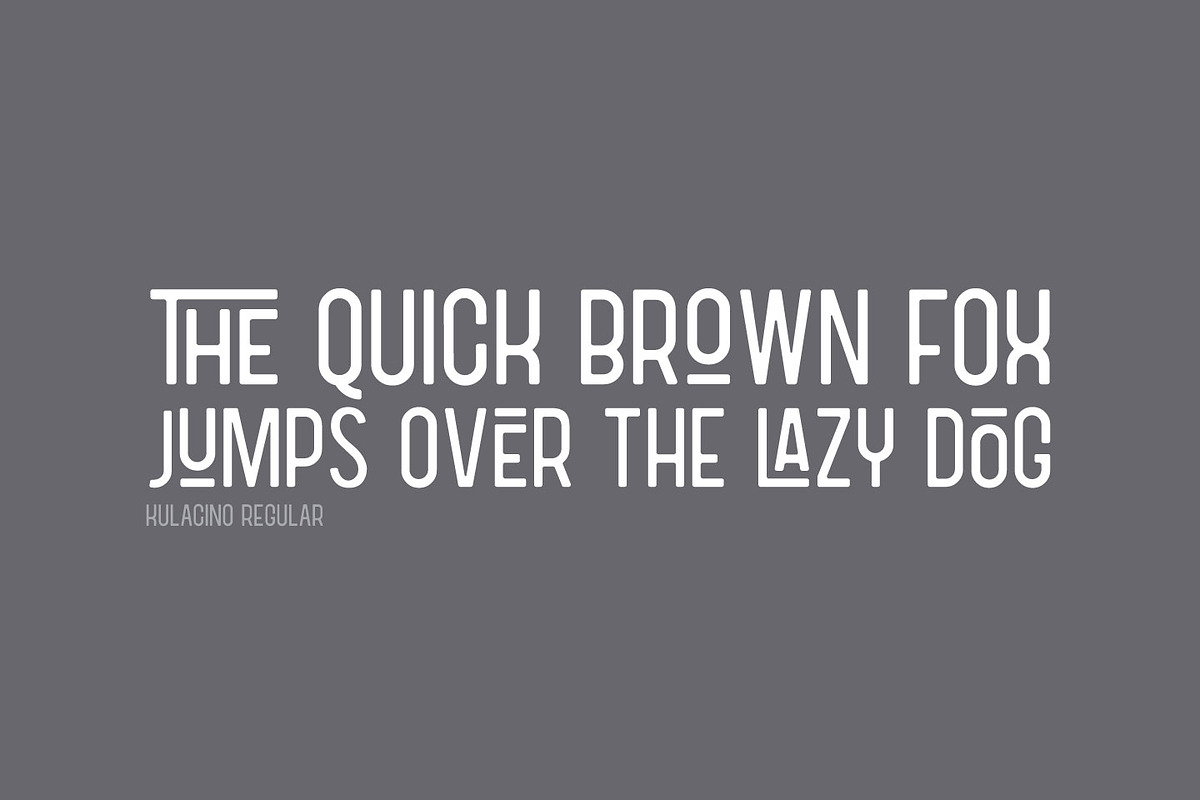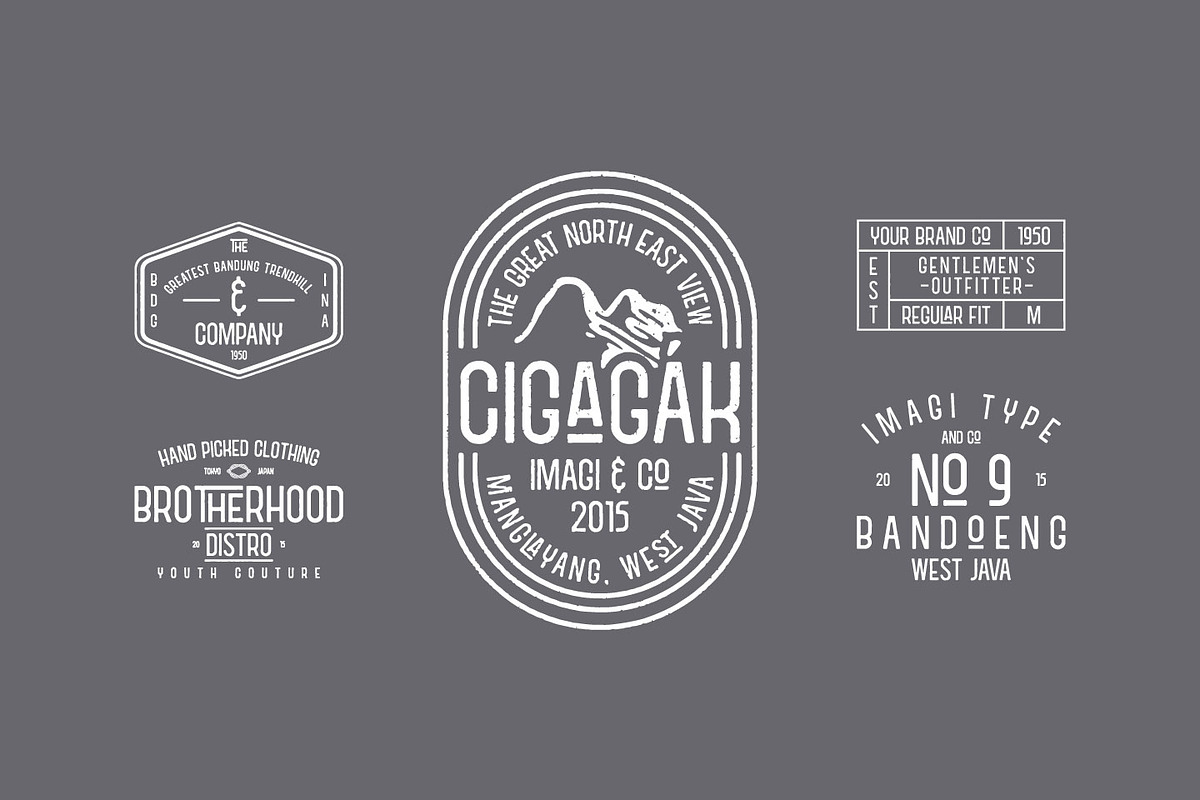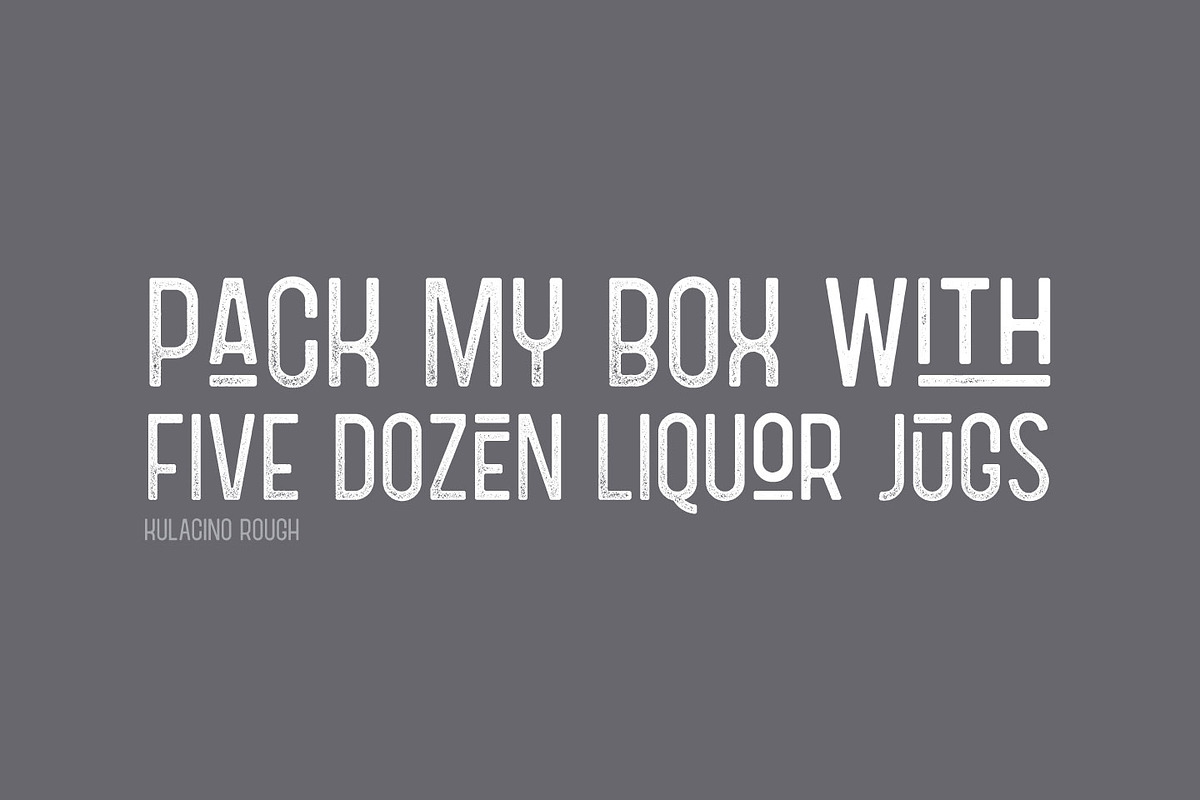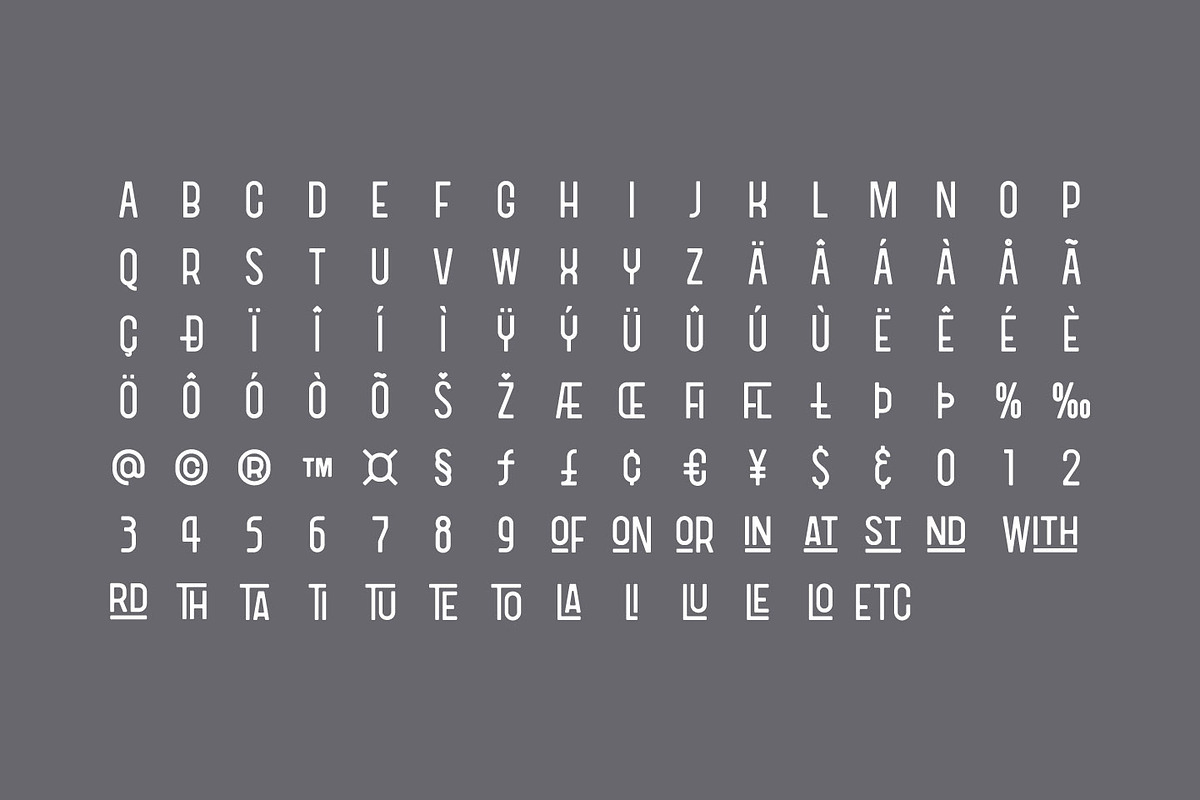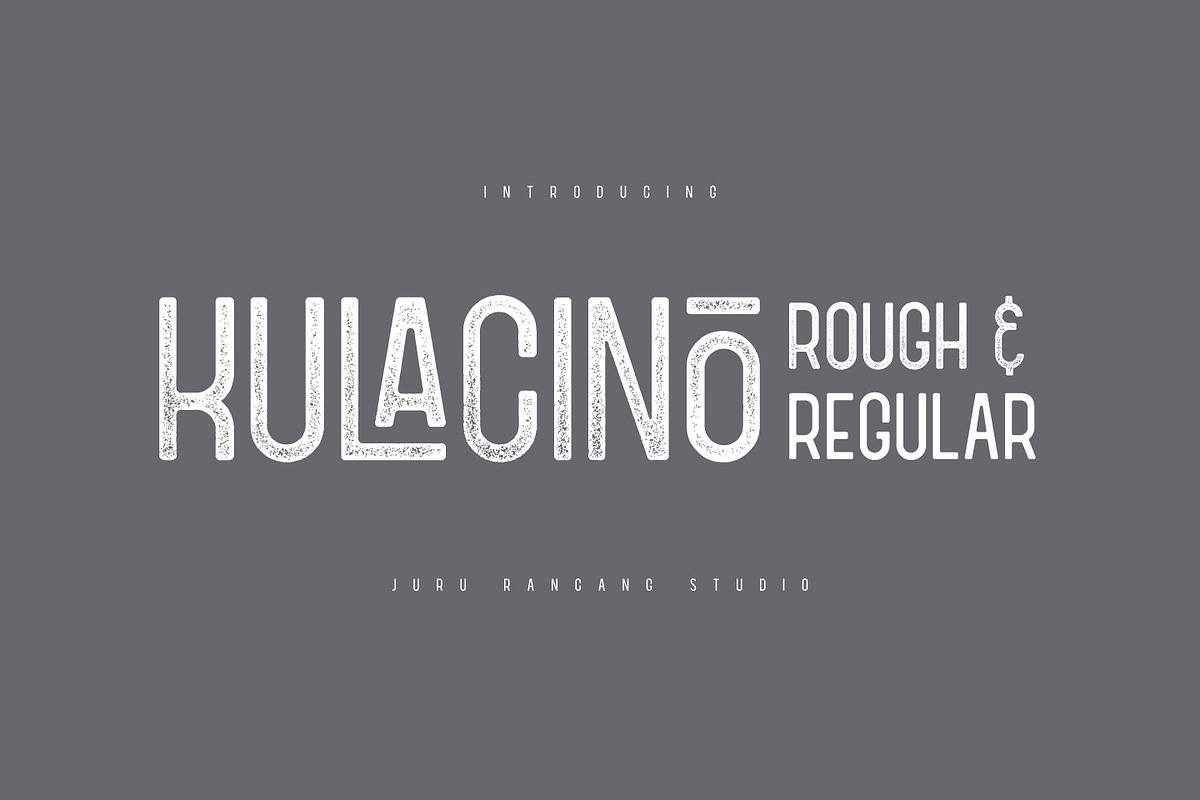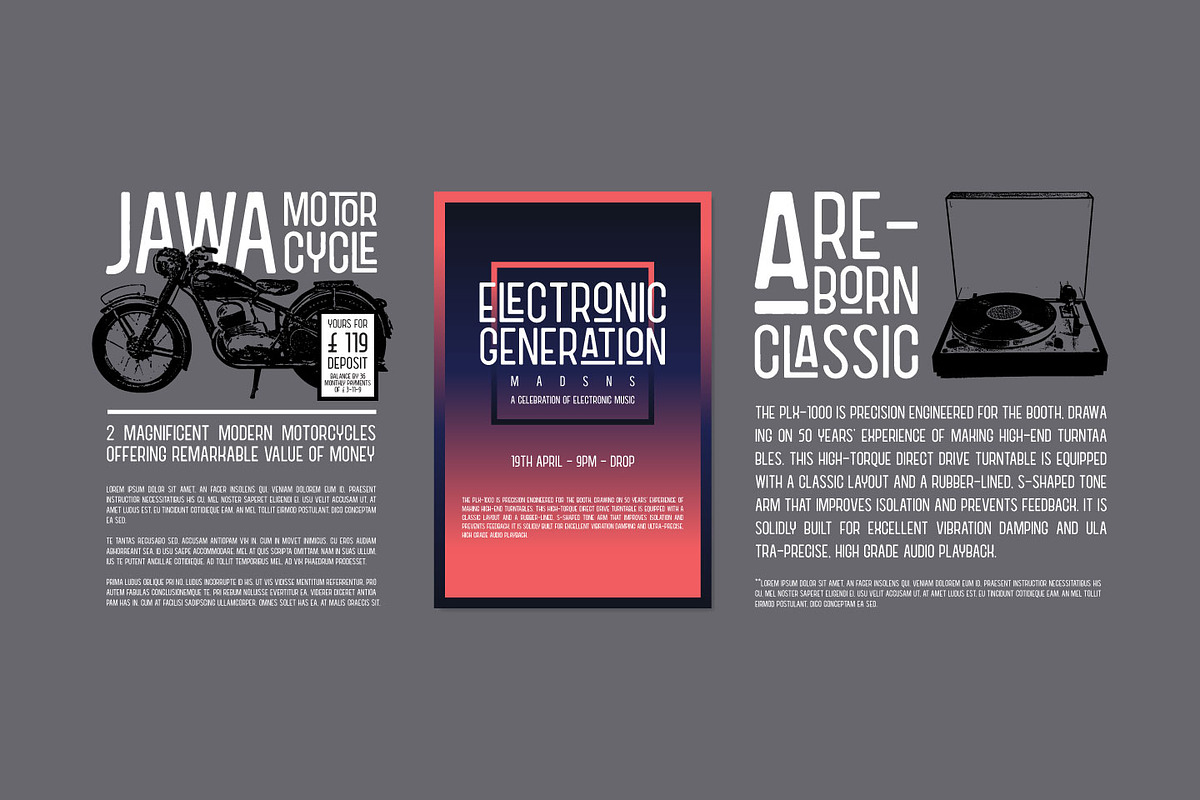
Kulacino
Introducing Kulacino – a modern-retro display typeface that captures the timeless appeal of vintage factory signs and license plates. Its bold, structured design is softened by smooth, rounded corners and subtle notches, adding a refined touch to every letter.
Kulacino brings a perfect blend of nostalgia and sophistication, making it the ideal choice for elevating any creative project. Unlock endless possibilities and infuse your designs with its distinctive charm and vintage flair!